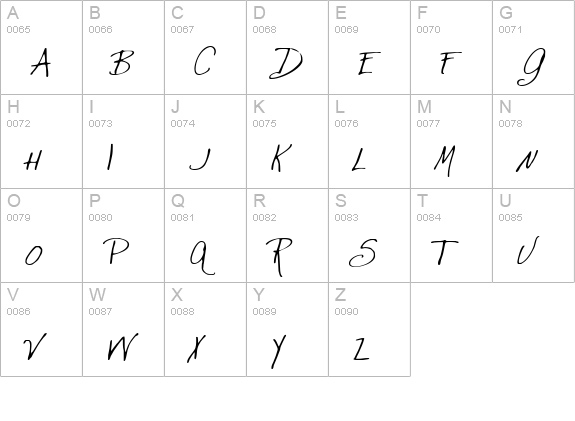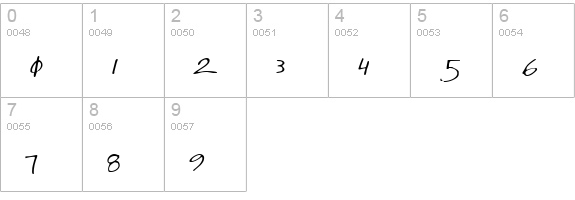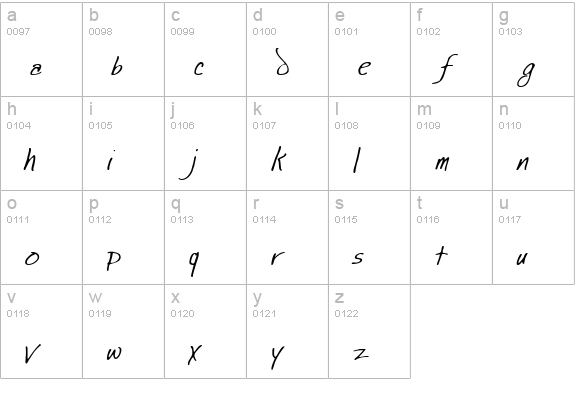
Jewel Hill font is a stunning display typeface that exudes elegance and sophistication. With its intricate details and graceful curves, this font is perfect for adding a touch of luxury to your projects. Whether you're designing a wedding invitation, a logo, or a branding project, Jewel Hill font will surely make a lasting impression. The best part? Jewel Hill font is completely free! That's right, you can download this exquisite font at FontsMarket.com without spending a dime. Don't miss out on the opportunity to elevate your designs with this beautiful typeface. Download Jewel Hill font today and let your creativity shine.